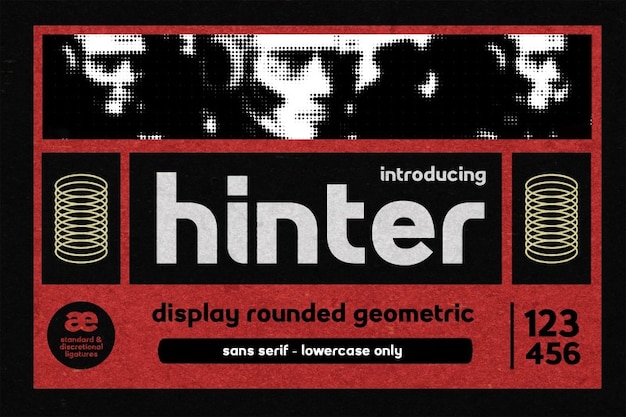
Hinter Font
Rounded and geometrical, Hinter merges retro charm with modern geometry. Its rounded edges evoke a nostalgic vibe reminiscent of classic design eras, while maintaining a contemporary geometric style. Ideal for infusing designs with a retro-modern fusion, Hinter brings a playful yet structured aesthetic, perfect for projects seeking a blend of vintage nostalgia and geometric sophistication.